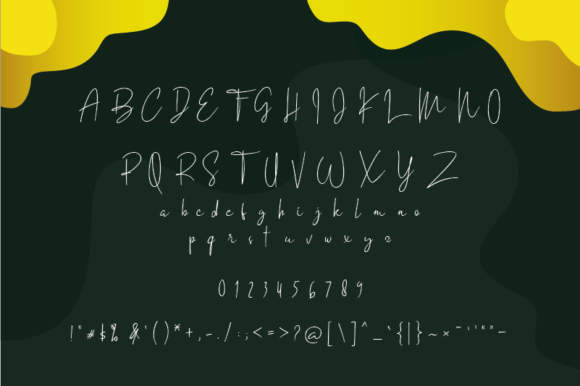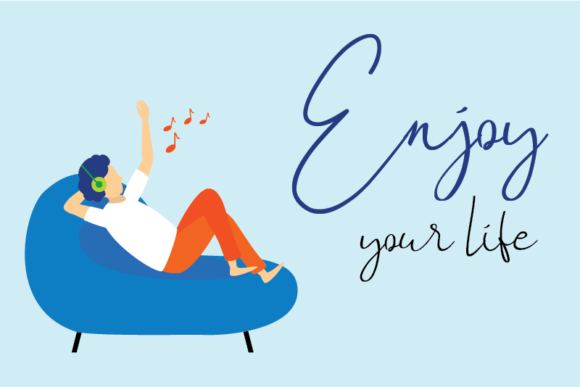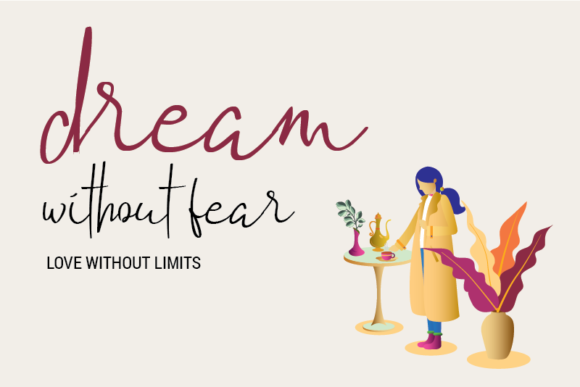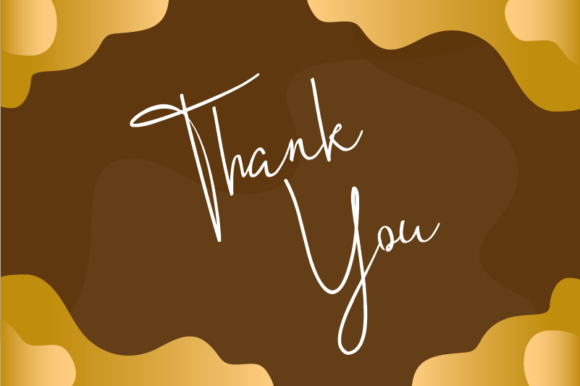
Introduction to Sign Me! Font
Remember that moment when you finally found the perfect design element for your project? It’s like a breath of fresh air, isn’t it? For designers, discovering a unique and high-quality font can be a game-changer. It’s the difference between a good design and a great one. And that’s exactly what the Sign Me! Font offers.
With its elegant touch and flowing handwritten style, this font is perfect for creating spectacular designs that leave a lasting impression. Whether you’re working on a creative project or need a design resource for your next big idea, Sign Me! Font is an excellent choice. Its timeless style and transparent background make it a versatile tool for any designer looking to add a personal touch to their work.
Key Features of Sign Me! Font
- Sign Me! Font offers a transparent background, making it easy to layer over other design elements without visual clutter.
- Unique characteristics include a modern, cursive design with a touch of elegance, making it perfect for invitations, greeting cards, and other creative projects.
Honest Review: Sign Me! Font
I recently came across the Sign Me! Font, a design resource that has been making waves in the creative community. As a designer, I was eager to put it to the test and see if it lives up to the hype.
- High quality font with crisp lines and smooth texture
Sign Me! Font
Tips for Getting the Most Out of Sign Me! Font
For optimal results, use the font in combination with other design elements, such as bold graphics and bright colors. Experiment with different font sizes and styles to find the perfect fit for your project.
The Sign Me! Font is perfect for:
- Creating eye-catching social media graphics
- Designing custom logos and branding materials
- Adding a personal touch to presentations and documents